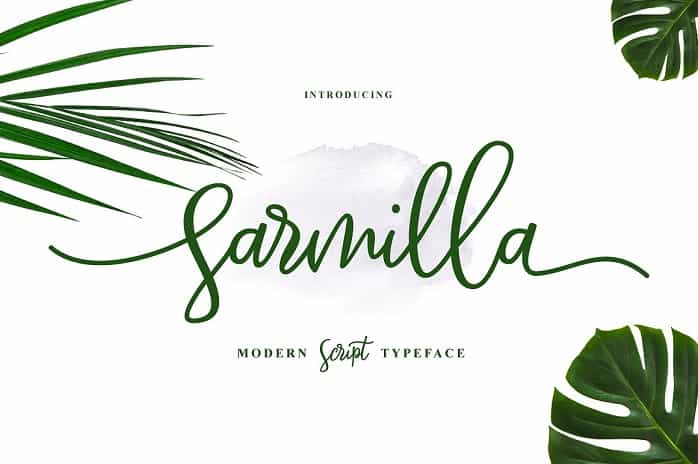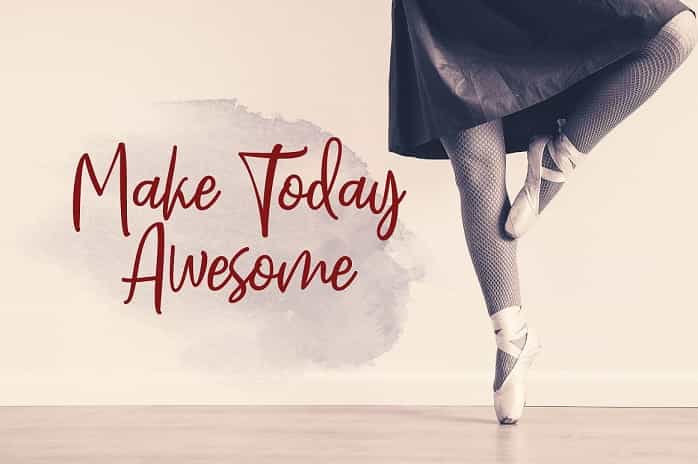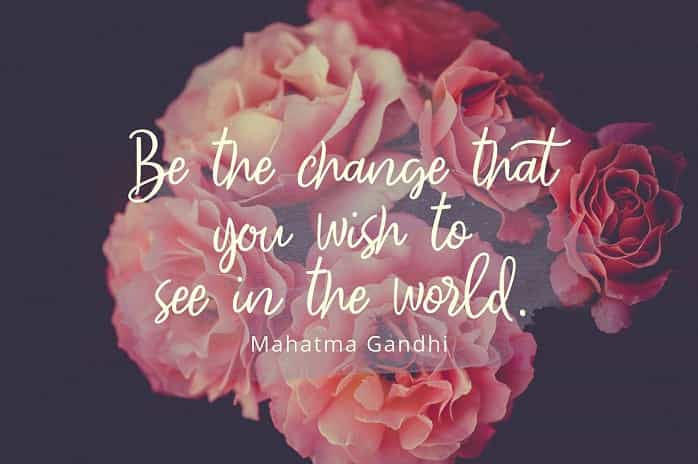
Sarmilla Font is a Handmade modern Script typeface. The hand look style of this font makes it ideal for all your design projects. This font will provide the designer a real feel for working on different projects, therefore it is perfect and beautiful to be used in invitations like greeting cards, branding materials, business cards, quotes, posters , logos etc. It also works as Wedding Stationery and much more!